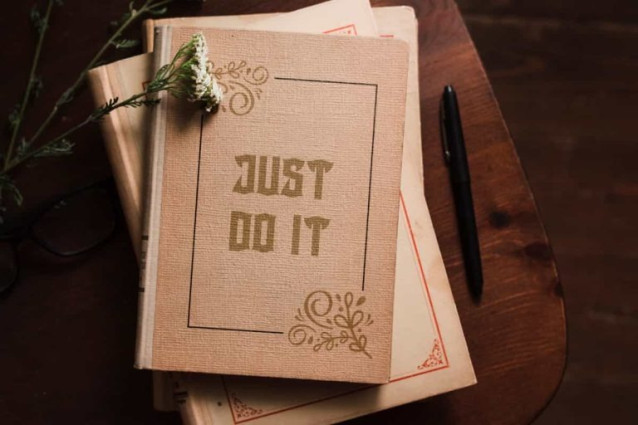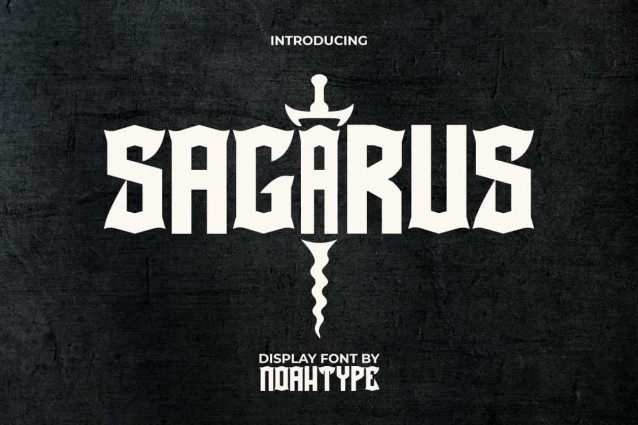
Sagarus Font
Sagarus Font is a royal bold display font, created by NoahType. This font has the right letter thickness so that it can still be read clearly and stands out in every design created. It will be good for any designs, such as brand image, custom design, invitation, label, marketing material, menu, poster, product packaging, quotes, signage, web, and many more!
Sagarus Font includes a complete set of Uppercase and Lowercase Basic Characters, Numerals, Punctuation, and Symbol. The Alternate character of this font will give amazing look and also a perfect choice for many industries, such as event or festival, game, movie, accessories, advertising, cafe, fashion, printing, publishing, etc.